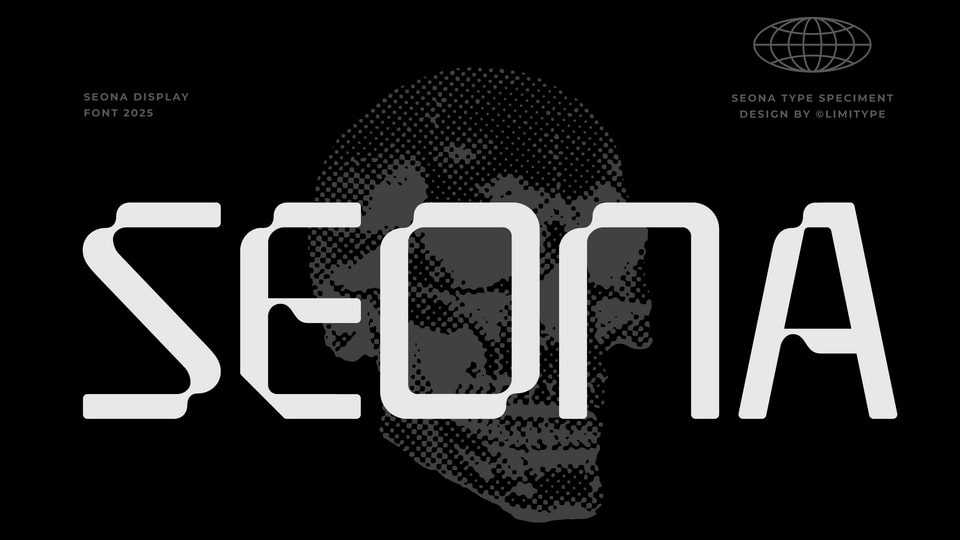
Download Seona font, a futuristic display typeface with a unique and slightly experimental letterform style and modern design, paired with distinctive connection shapes.